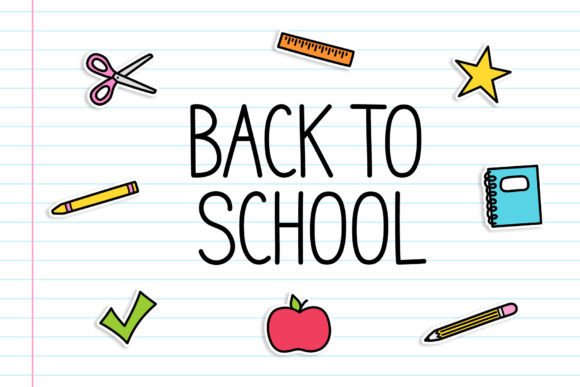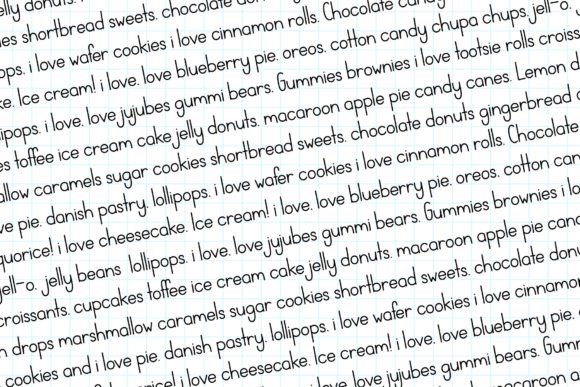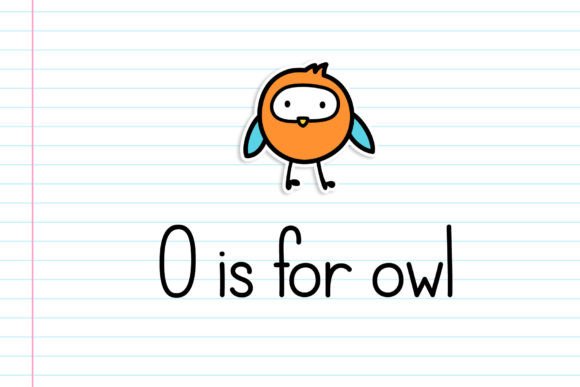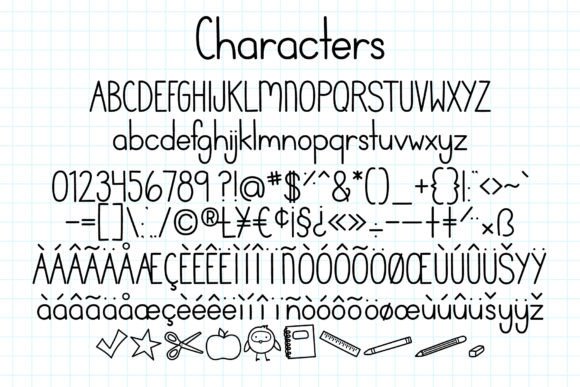
Introducing Elementary Type Font: A Cute and Friendly Display Font for Kids and Teachers
Are you a teacher, designer, or parent looking for a fun and engaging font to make your school projects, lesson sheets, children’s books, and stationery more appealing? Look no further than Elementary Type Font! This playful display font is specially crafted for kids and teachers, and it’s perfect for a wide range of creative projects.
What Makes Elementary Type Font So Special?
Elementary Type Font is a unique and charming font that’s designed to bring a smile to kids’ faces. Its cute and friendly appearance makes it ideal for:
- School projects: Add a touch of whimsy to reports, presentations, and posters.
- Lesson sheets: Make learning fun with engaging and colorful headings.
- Children’s books: Create a captivating and imaginative storybook with this delightful font.
- Stationery: Design adorable greeting cards, invitations, and letters.
- Planners: Add a playful touch to your daily or weekly planners.
Key Features of Elementary Type Font
This font comes with some exciting features that make it a must-have for designers and crafters:
- Cute and playful design: The font’s friendly appearance is sure to delight kids and teachers alike.
- 10 super cute doodles: Add an extra touch of fun to your projects with these adorable doodles.
- Easy to read: The font is clear and legible, making it perfect for reading and writing.
- Versatile: Use it for a wide range of projects, from digital designs to print materials.
Who Can Benefit from Elementary Type Font?
Elementary Type Font is perfect for:
- Teachers: Create engaging lesson plans, worksheets, and classroom materials.
- Designers: Develop eye-catching materials for schools, educational institutions, and children’s products.
- Parents: Design fun and interactive learning materials for your kids.
- Crafters: Add a personal touch to your DIY projects, such as planners, journals, and cards.
Tips for Using Elementary Type Font
Here are some ideas to get you started:
- Mix and match with other fonts: Combine Elementary Type Font with other fonts for a unique look.
- Use it for headings and titles: Add a pop of color and fun to your headings and titles.
- Add doodles and graphics: Use the included doodles to add visual interest to your projects.
- Experiment with colors: Try out different colors and color combinations to match your brand or project’s theme.
| Font Name | Elementary Type Font |
| Author | Miss Tiina |
Elementary Type Font is a delightful and versatile font that’s perfect for kids and teachers. Its cute and friendly design, along with the included doodles, makes it a great addition to any project. Whether you’re a designer, teacher, parent, or crafter, this font is sure to bring a smile to your face and inspire your creativity.